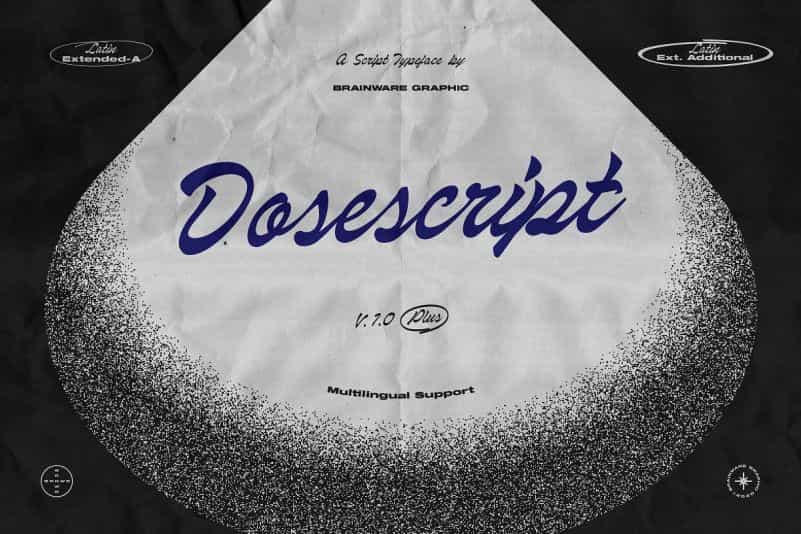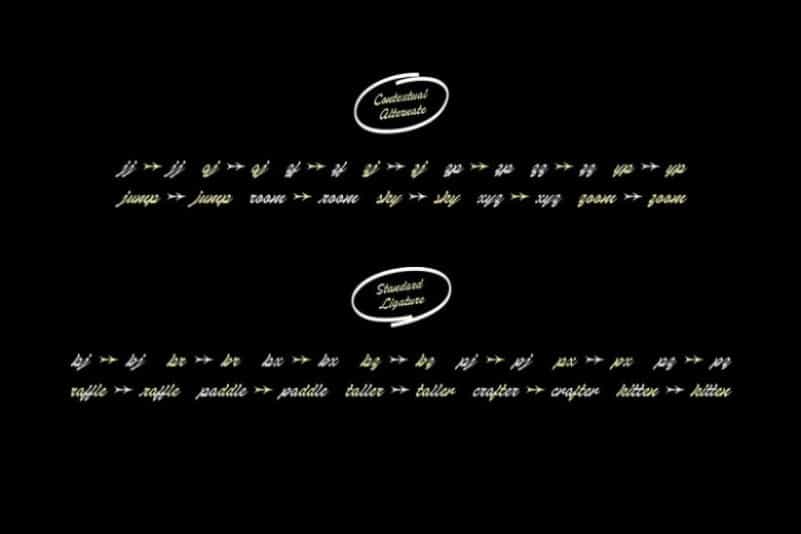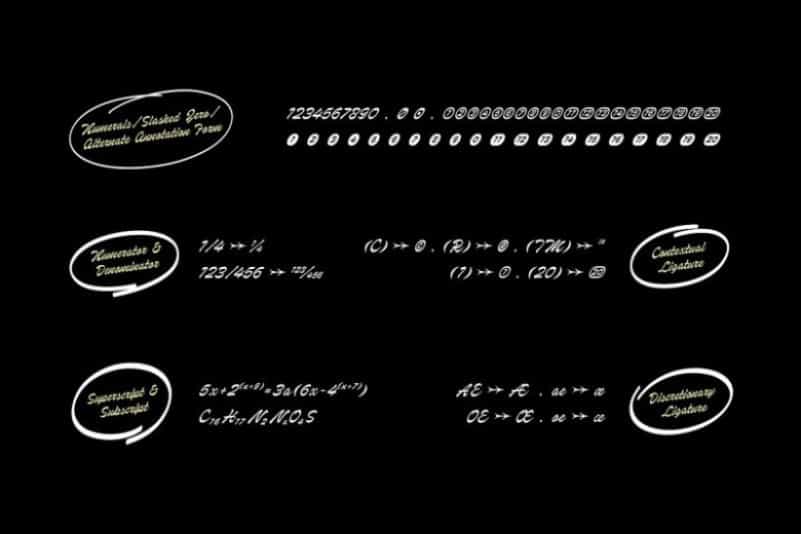
Dosescript Font is a hand calligraphy, smooth, modern and classic, wavy line which was made to satisfy the needs of your next design project. Dosescript, can be used for different things. the title, signature, logo, correspondence, wedding invitations, letterhead, signage and the like are among such things.